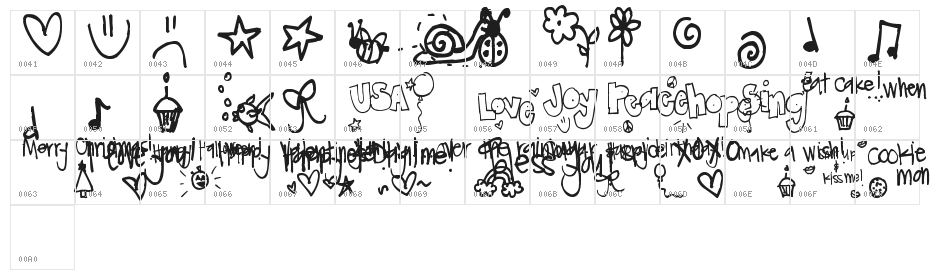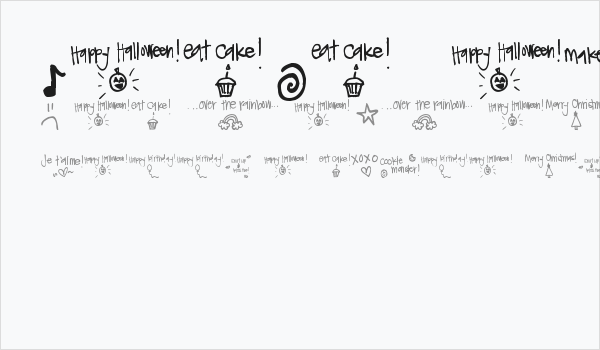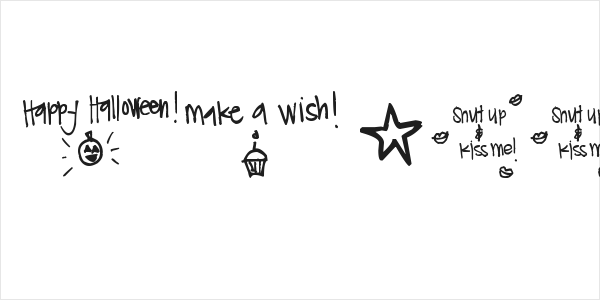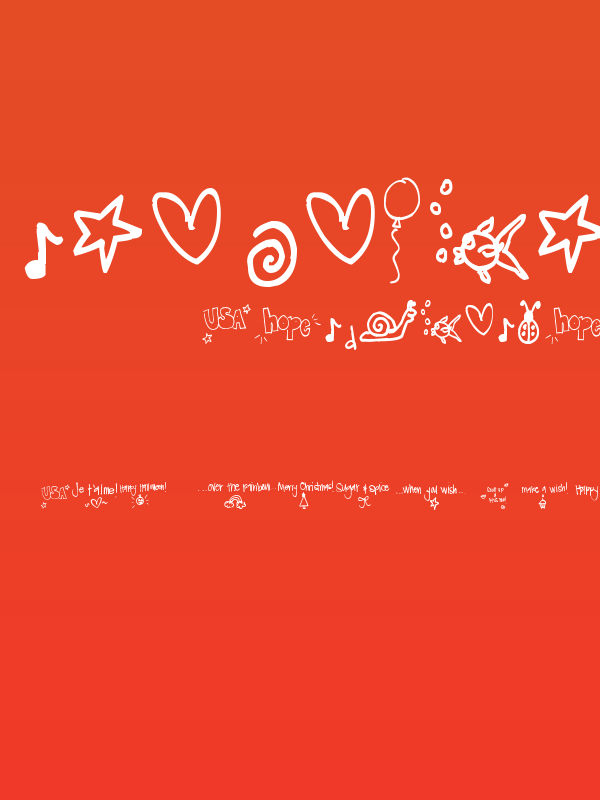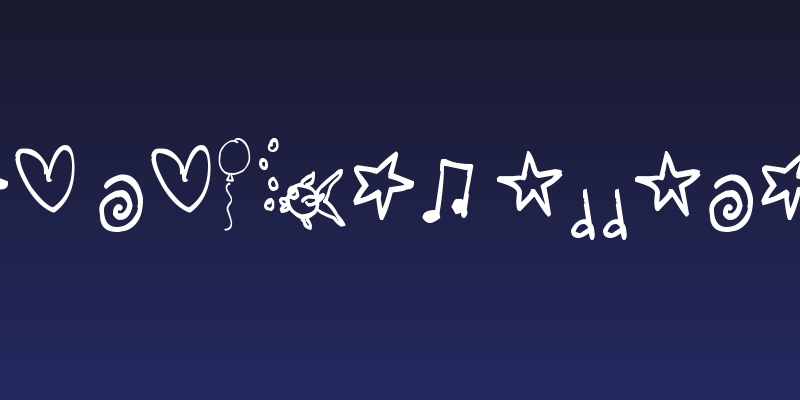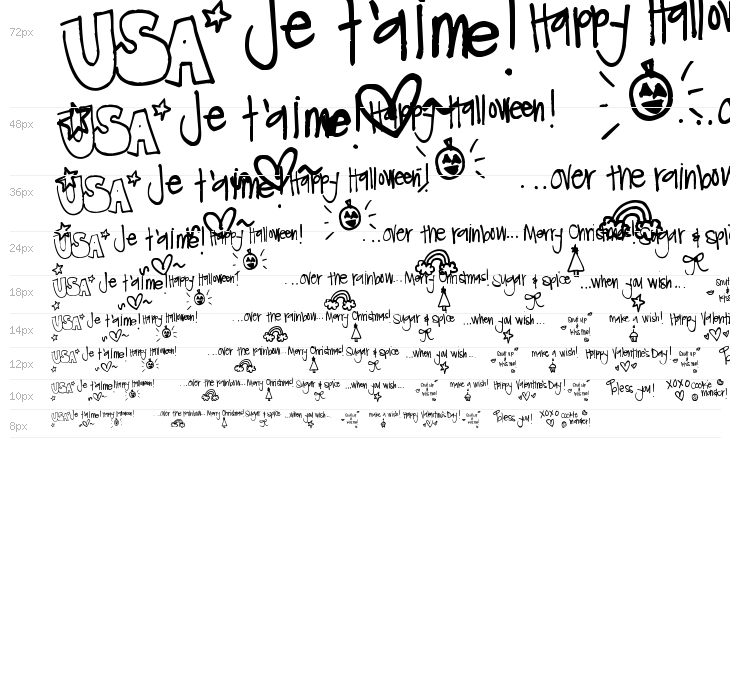
Pea Lauren Doodles Font
Pea Lauren Doodles Description
This playful and whimsical font is characterized by its hand-drawn doodles and casual lettering style. It features a variety of charming illustrations, including hearts, stars, musical notes, and other playful symbols. The letters are irregular and free-spirited, conveying a sense of fun and creativity. The font includes uppercase and lowercase letters, numbers, and a selection of special characters, all designed with a quirky and informal aesthetic. The overall appearance is light-hearted and imaginative, making it perfect for projects that require a touch of personality and charm.
| Overall Style | Whimsical, Playful |
| Use Case | Logos, Invitations, Creative Projects |
| Proposed Projects | Ideal for greeting cards, children's books, playful branding, and creative invitations. |